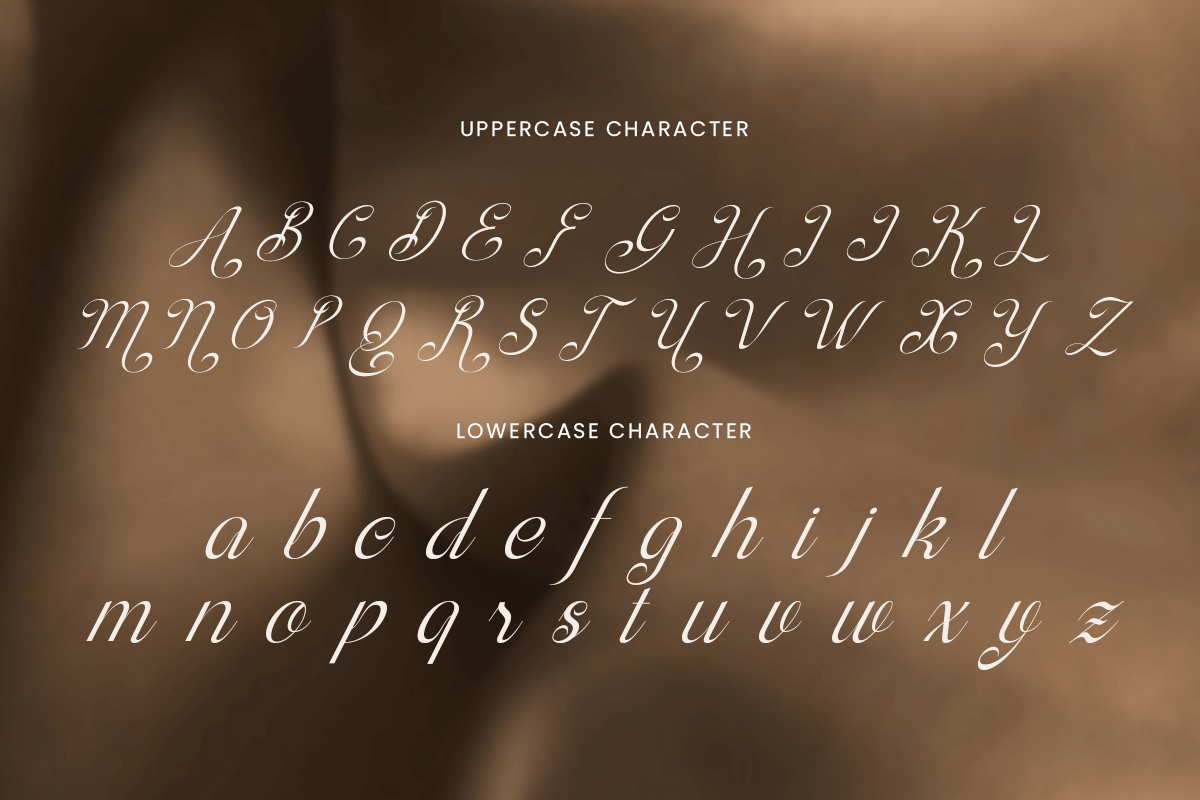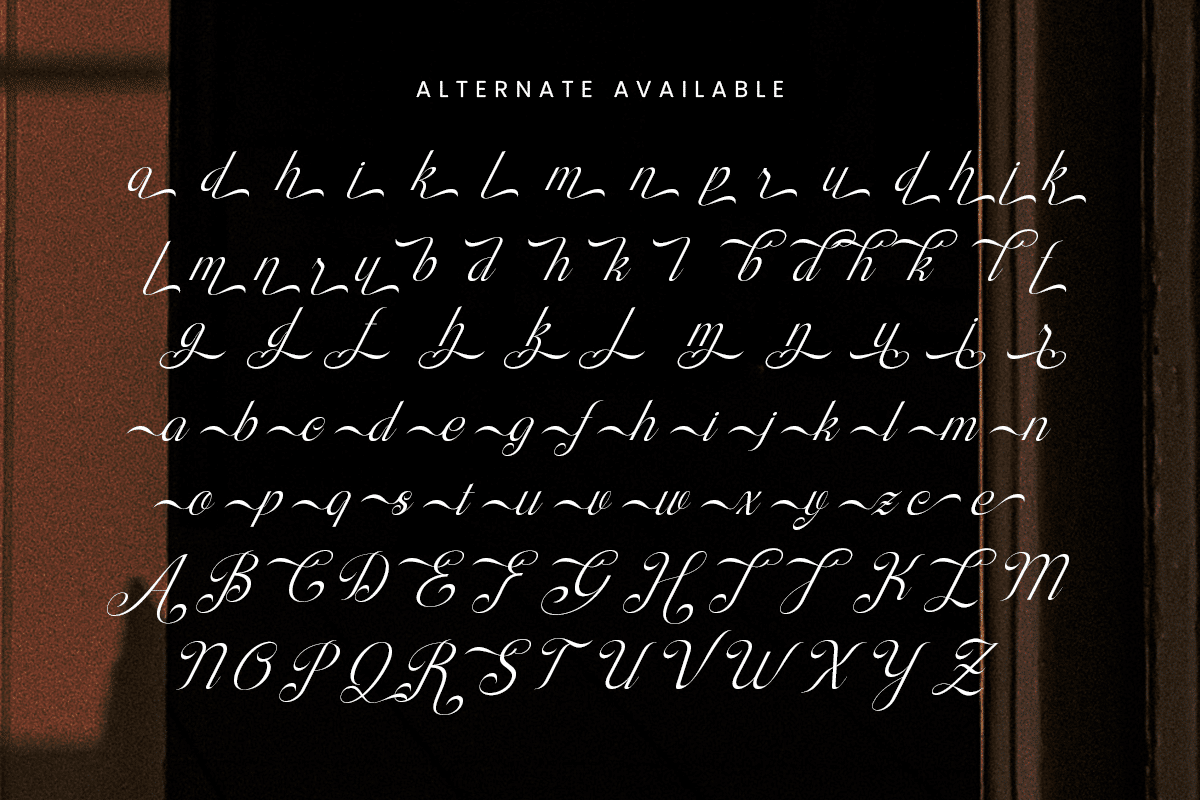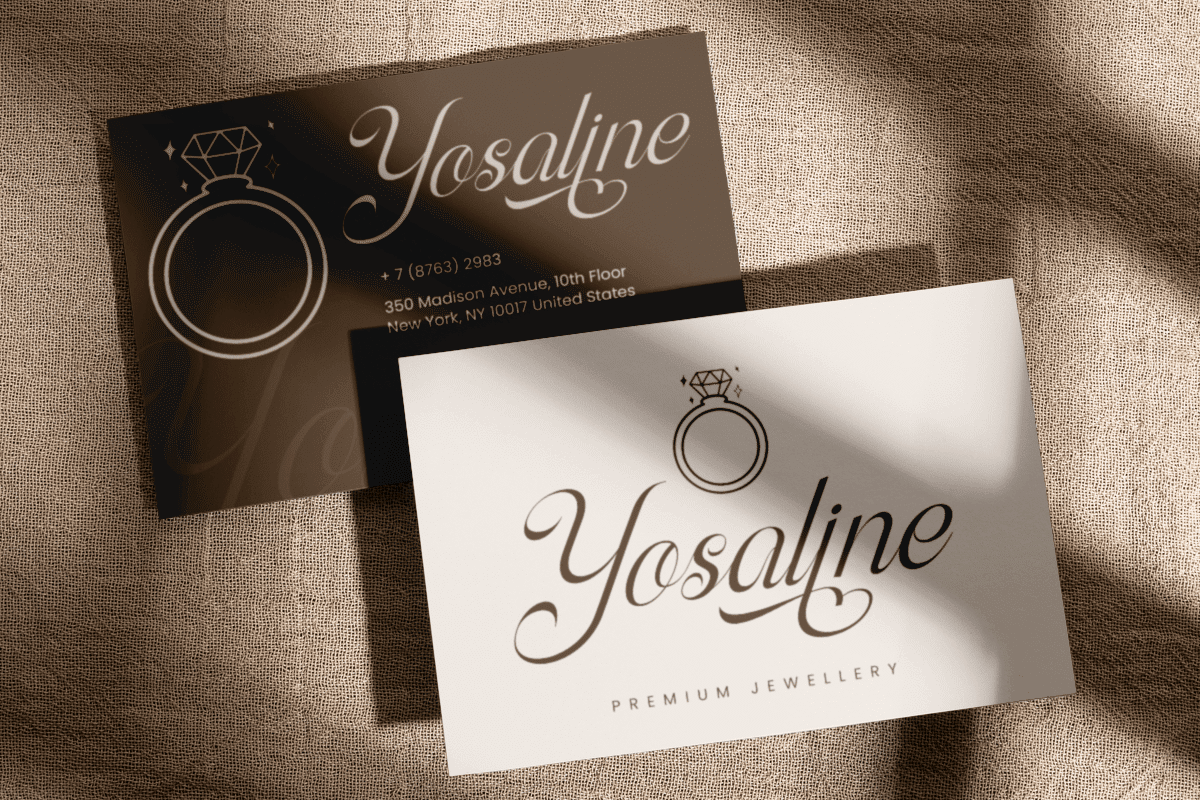
Elanor – Cinematic Elegance Wedding Font
ELANOR is a cinematic elegance wedding script font designed to evoke timeless beauty and sophistication. Perfect for luxury weddings, high-end invitations, and romantic branding, ELANOR combines graceful curves with delicate calligraphy to create a refined, elegant aesthetic that adds a touch of class to any project.
Whether youβre designing wedding invitations, save-the-dates, or elegant logos, ELANOR provides the perfect balance of romantic style and professional polish. Inspired by classic cinematic elegance, this font will ensure your special event or brand leaves a lasting impression.
ELANOR β Cinematic Elegance Wedding Script Font Features
- Elegant script letterforms with a cinematic flair
- Ideal for wedding invitations, logos, and high-end branding
- Includes uppercase, lowercase, numerals, and punctuation
- Graceful, romantic design with professional sophistication
- OpenType features for advanced typographic styling